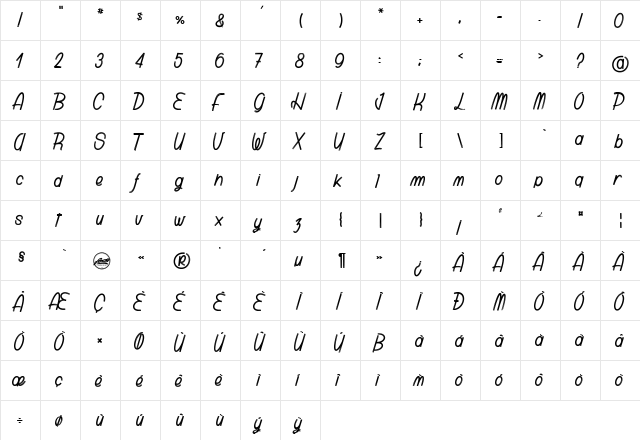
Polibrush Regular
| Foundry | dcoxy Medina Gregory |
| Designer | dcoxy Medina Gregory |
Design Context for Polibrush Typeface
Polibrush brings a calligraphic fluidity to the page — its connecting strokes and expressive curves give it an unmistakably human quality.
Font Pairing: Combine Polibrush with a simple geometric sans for maximum contrast — the tension between flowing curves and clean structure is a classic typographic pairing.
Pro Tip: Use Polibrush for short runs of text — names, titles, or taglines. Extended body copy in script faces tires the eye quickly.